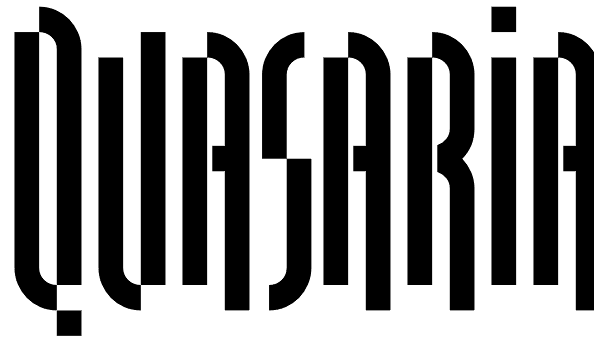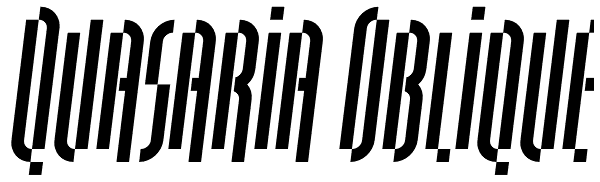
Quasaria
Linotype Quasaria is part of the Take Type Library, selected from contestants of Linotype’s International Digital Type Design Contests of 1994 and 1997. The font was designed by German artist Armin Retzko and the characters are composed of...